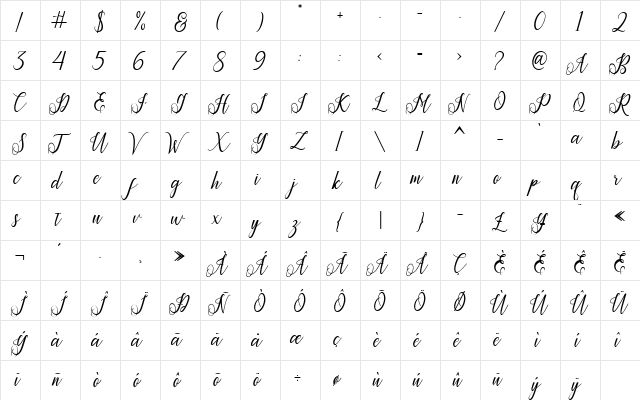
Princella Bold
Design Context for Princella Typeface
Princella is a composed and adaptable typeface that performs quietly and consistently across a wide range of design contexts. The heavy weight commands attention and anchors typographic hierarchies.